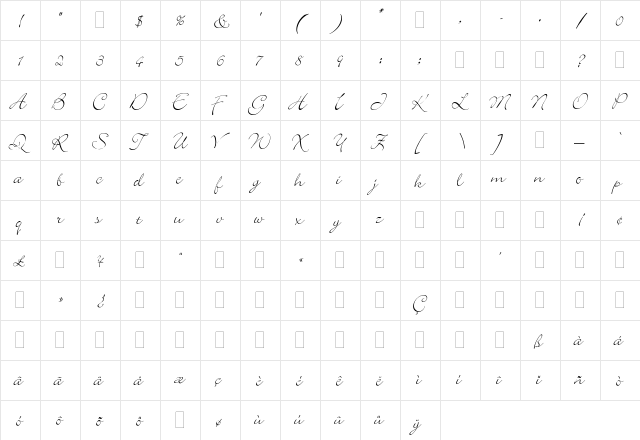
BickleyScriptPlain Regular
Design Context for BickleyScriptPlain Typeface
BickleyScriptPlain brings a calligraphic fluidity to the page — its connecting strokes and expressive curves give it an unmistakably human quality.
Font Pairing: Combine BickleyScriptPlain with a simple geometric sans for maximum contrast — the tension between flowing curves and clean structure is a classic typographic pairing.
Pro Tip: Use BickleyScriptPlain for short runs of text — names, titles, or taglines. Extended body copy in script faces tires the eye quickly.